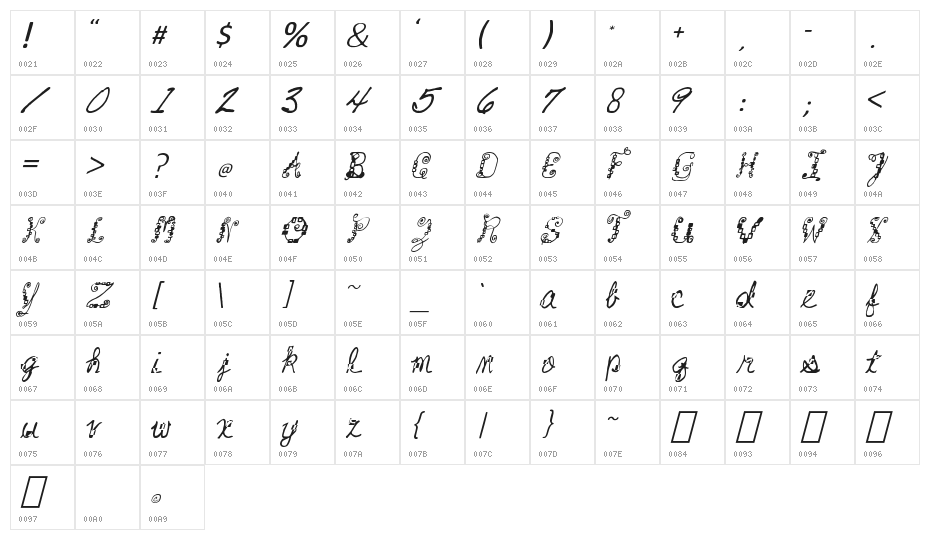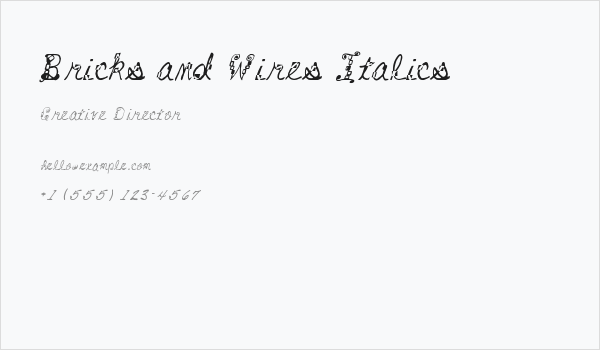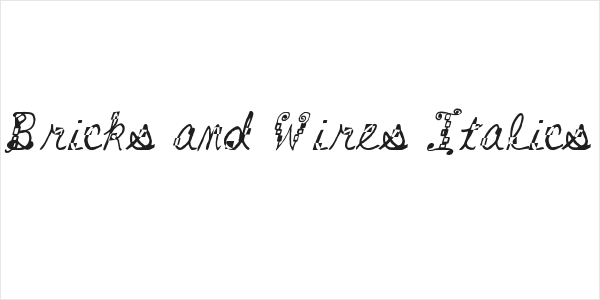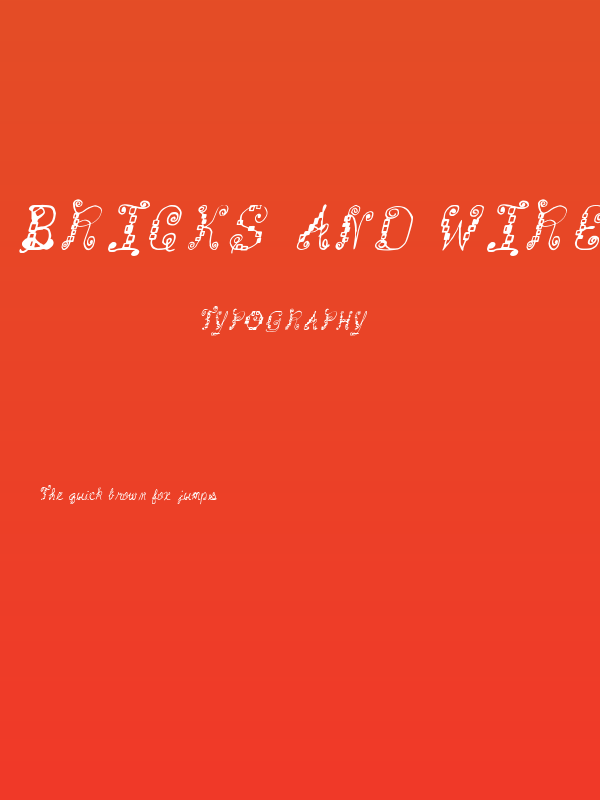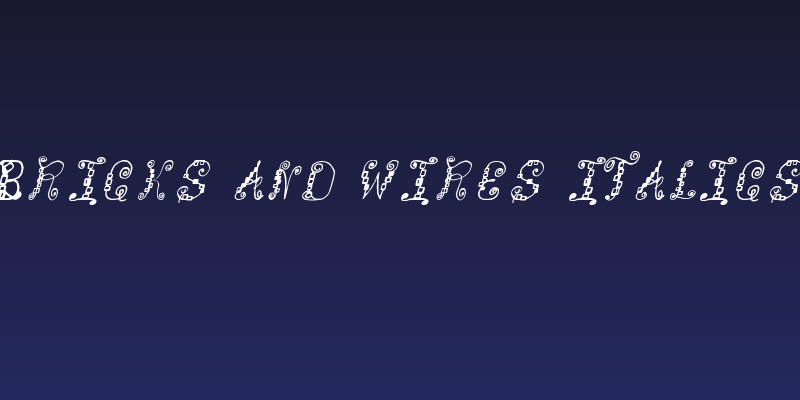
Bricks and Wires Italics Font
Bricks and Wires Italics Description
This font features a unique blend of decorative elements and a playful, whimsical style. The uppercase letters are adorned with intricate wire-like patterns, giving them a distinctive and artistic appearance. The lowercase letters maintain a more fluid and cursive style, creating a dynamic contrast with the uppercase. Numbers and special characters are designed with similar decorative flair, ensuring consistency throughout. The overall look is both modern and creative, making it suitable for projects that require a touch of individuality and artistic expression.
| Use Case | Headlines, Logos, Artistic projects |
| Proposed Projects | Ideal for creative projects such as posters, invitations, artistic branding, and unique logo designs. |